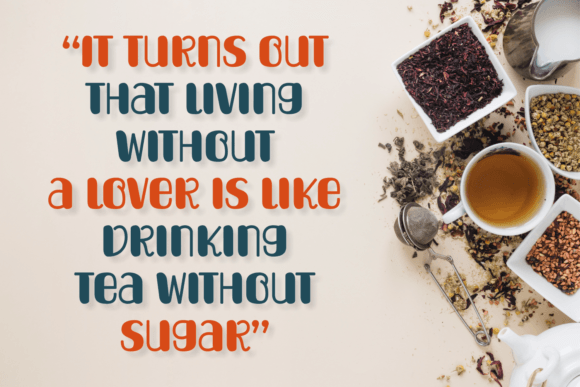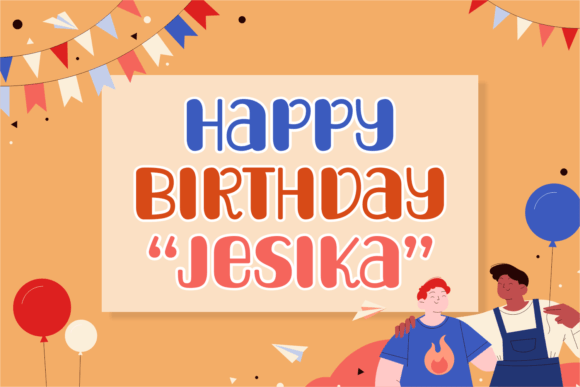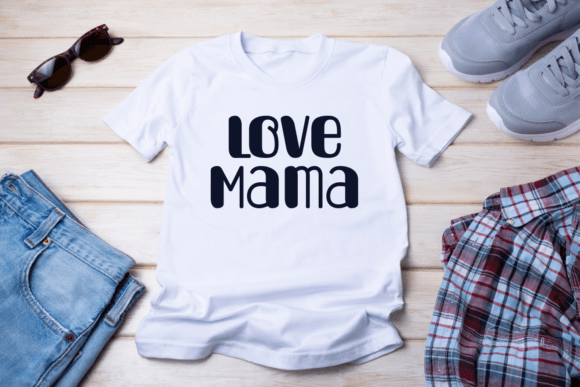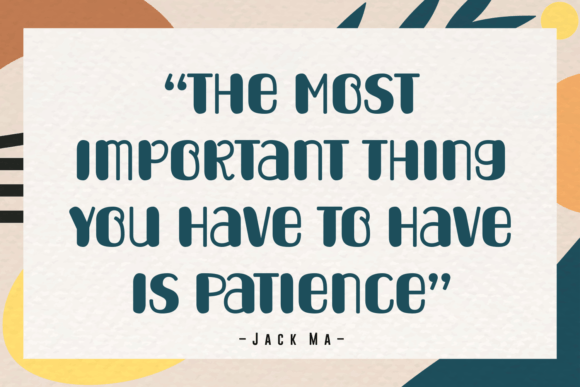
Discover the Joyful World of Happy Pages Font
Are you tired of using the same old fonts for your designs? Look no further than Happy Pages Font, a vibrant and dynamic display font that’s sure to bring a smile to your face. In this article, we’ll dive into the unique characteristics of Happy Pages Font, explore its uses, and discuss why it’s a must-have for designers and crafters.
The Unique Characteristics of Happy Pages Font
Happy Pages Font is a display font that stands out from the crowd due to its distinctive interplay of thick and thin lines. Each letter is carefully crafted with alternating strokes, creating a sense of rhythm and movement within the font. The thick lines provide stability and strength, while the thin lines add a touch of elegance and sophistication. This harmonious balance of lines gives Happy Pages Font its unique personality and makes it perfect for headlines, titles, and other display applications.
The Psychology of Happy Pages Font
Fonts can evoke emotions and convey messages without saying a word. Happy Pages Font is no exception. Its dynamic and playful design exudes a sense of joy and vitality, making it ideal for designs that require a bold and energetic typographic style. The font’s balanced combination of thick and thin lines adds visual interest and dimension to any design, while its whimsical appearance lends a touch of personality and charm.
Uses of Happy Pages Font
Happy Pages Font is a versatile font that can be used in a variety of design applications, including:
- Headlines and Titles: Happy Pages Font is perfect for creating eye-catching headlines and titles that grab attention.
- Branding and Logo Design: The font’s unique personality makes it an excellent choice for branding and logo design.
- Posters and Flyers: Happy Pages Font is ideal for creating posters and flyers that require a bold and energetic typographic style.
- Digital Media: The font can be used in digital media, such as social media graphics, videos, and presentations.
Benefits of Using Happy Pages Font
So, why should you choose Happy Pages Font for your designs? Here are just a few benefits:
- Unique and Memorable: Happy Pages Font is a one-of-a-kind font that will make your designs stand out from the crowd.
- Versatile: The font can be used in a variety of design applications, from print to digital media.
- Easy to Read: Despite its playful design, Happy Pages Font is easy to read, making it perfect for headlines and titles.
- Customizable: The font can be customized to fit your design needs, allowing you to experiment with different colors, sizes, and styles.
Tips for Using Happy Pages Font
To get the most out of Happy Pages Font, here are a few tips:
- Use it sparingly: Happy Pages Font is a bold font, so use it sparingly to avoid overwhelming your design.
- Experiment with colors: The font looks great in a variety of colors, so don’t be afraid to experiment and find the perfect hue for your design.
- Pair it with other fonts: Happy Pages Font pairs well with other fonts, so try combining it with a serif or sans-serif font to create visual interest.
In conclusion, Happy Pages Font is a unique and versatile display font that’s perfect for designers and crafters looking to add a touch of joy and vitality to their designs. Its dynamic interplay of thick and thin lines, balanced combination of stability and elegance, and playful appearance make it a must-have for any design project. Whether you’re creating headlines, titles, or branding materials, Happy Pages Font is sure to bring a smile to your face and make your designs stand out from the crowd.